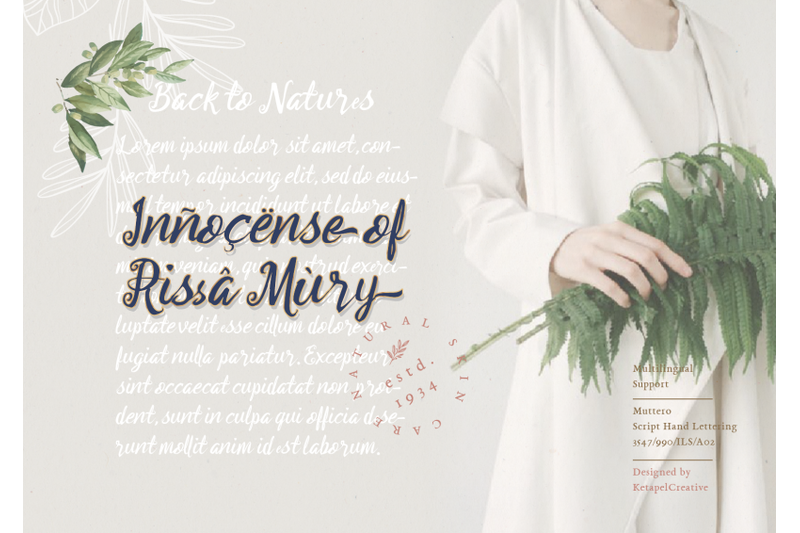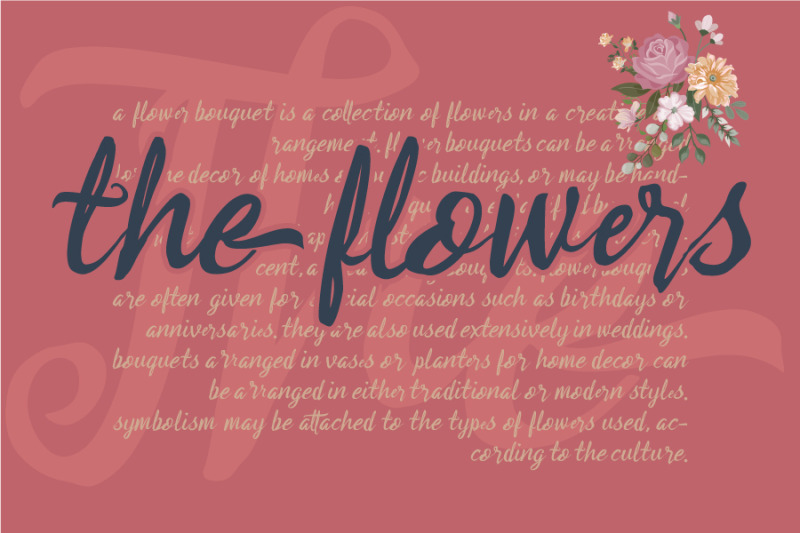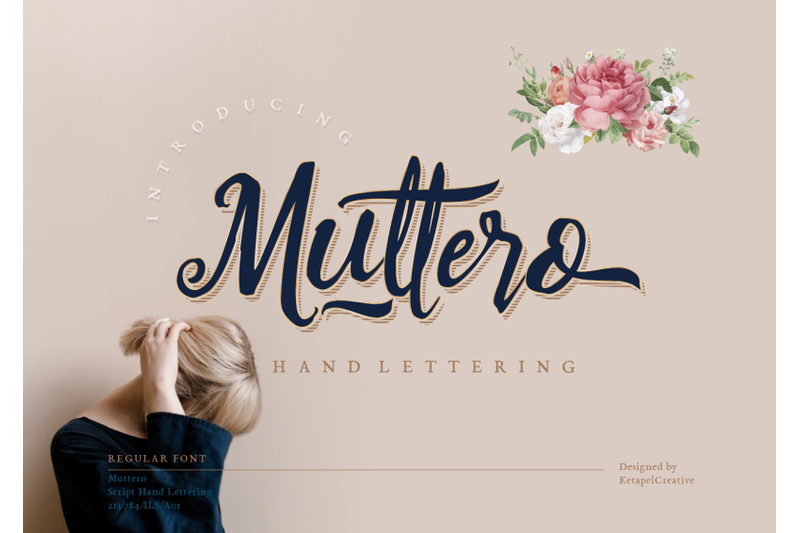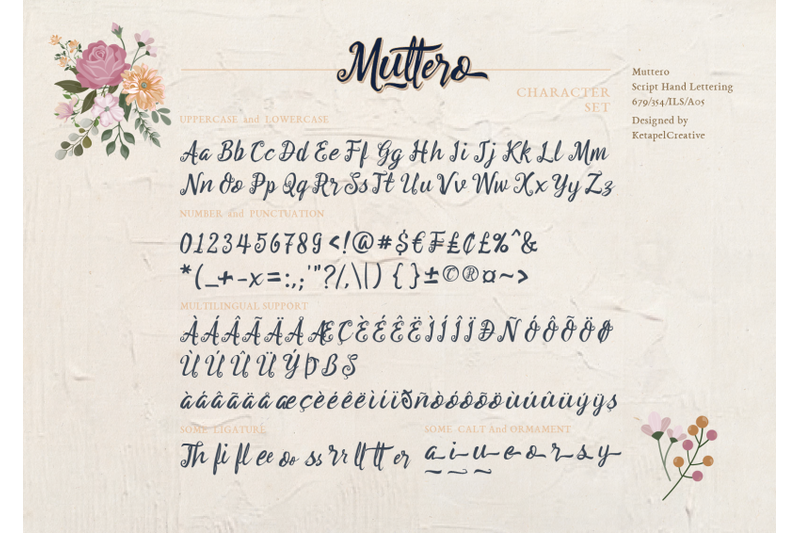
Freebie Wednesday: Muttero Font
Muttero is a gorgeous hand-lettered script with an authentic twist. Fall in love with its unique charm! Available in uppercase/lowercase letters, standard numbers, punctuations, ligatures and contextual alternates!